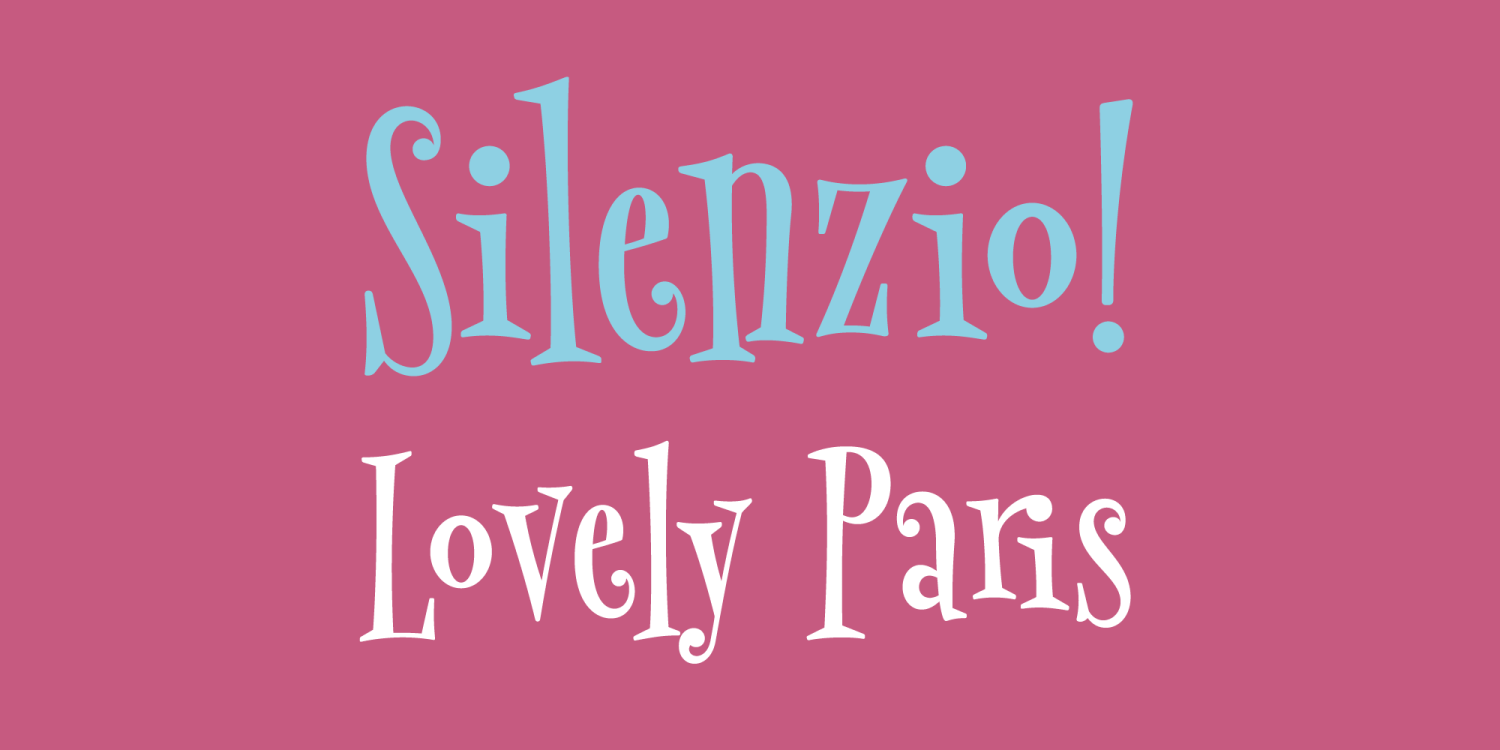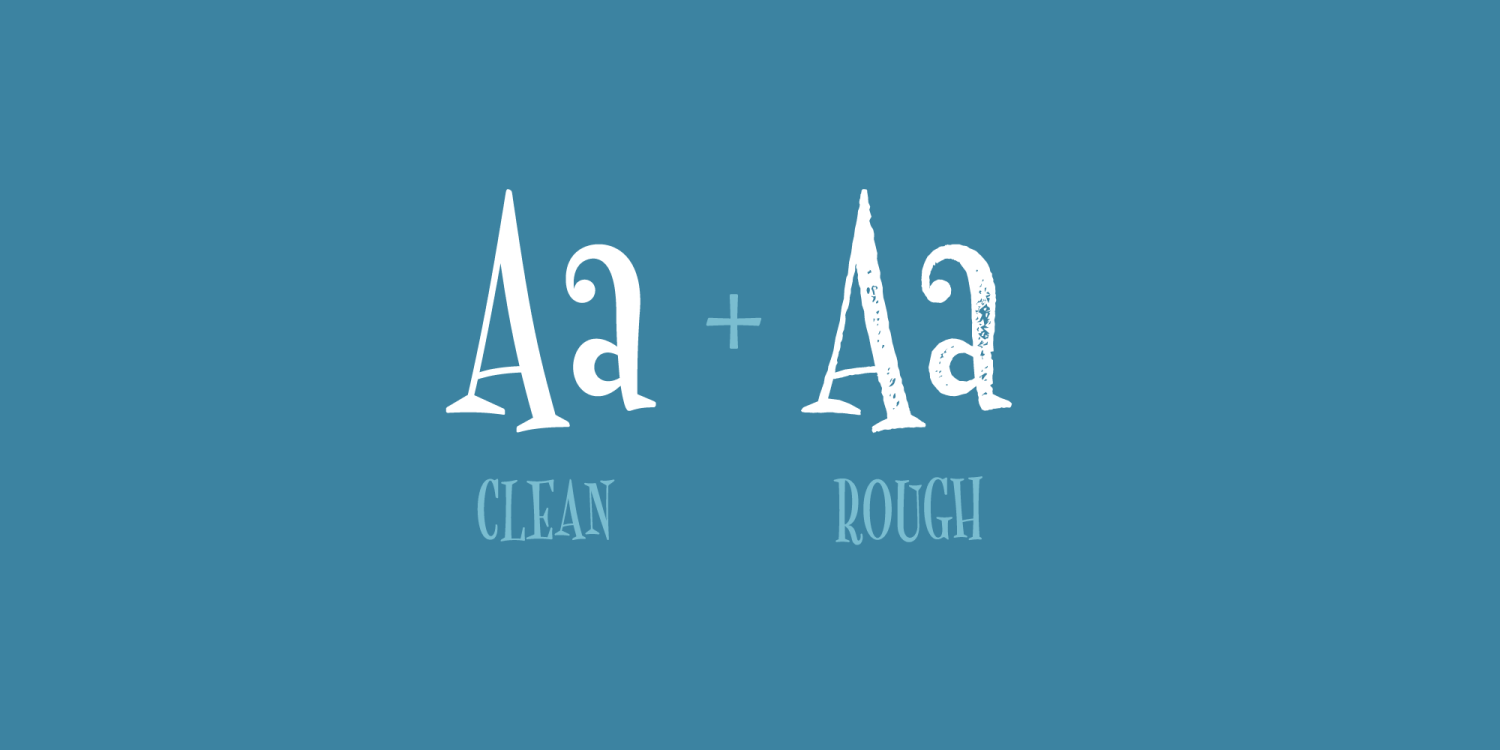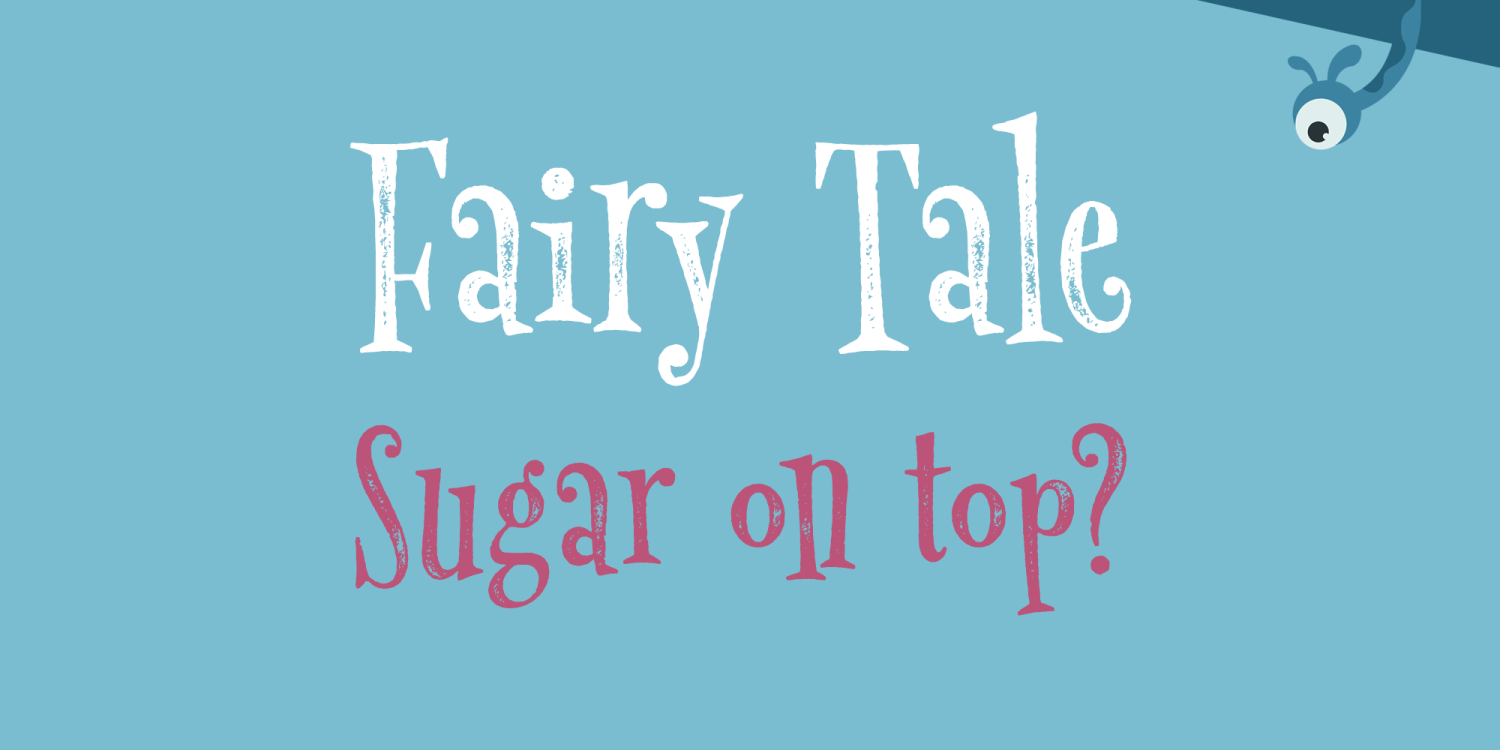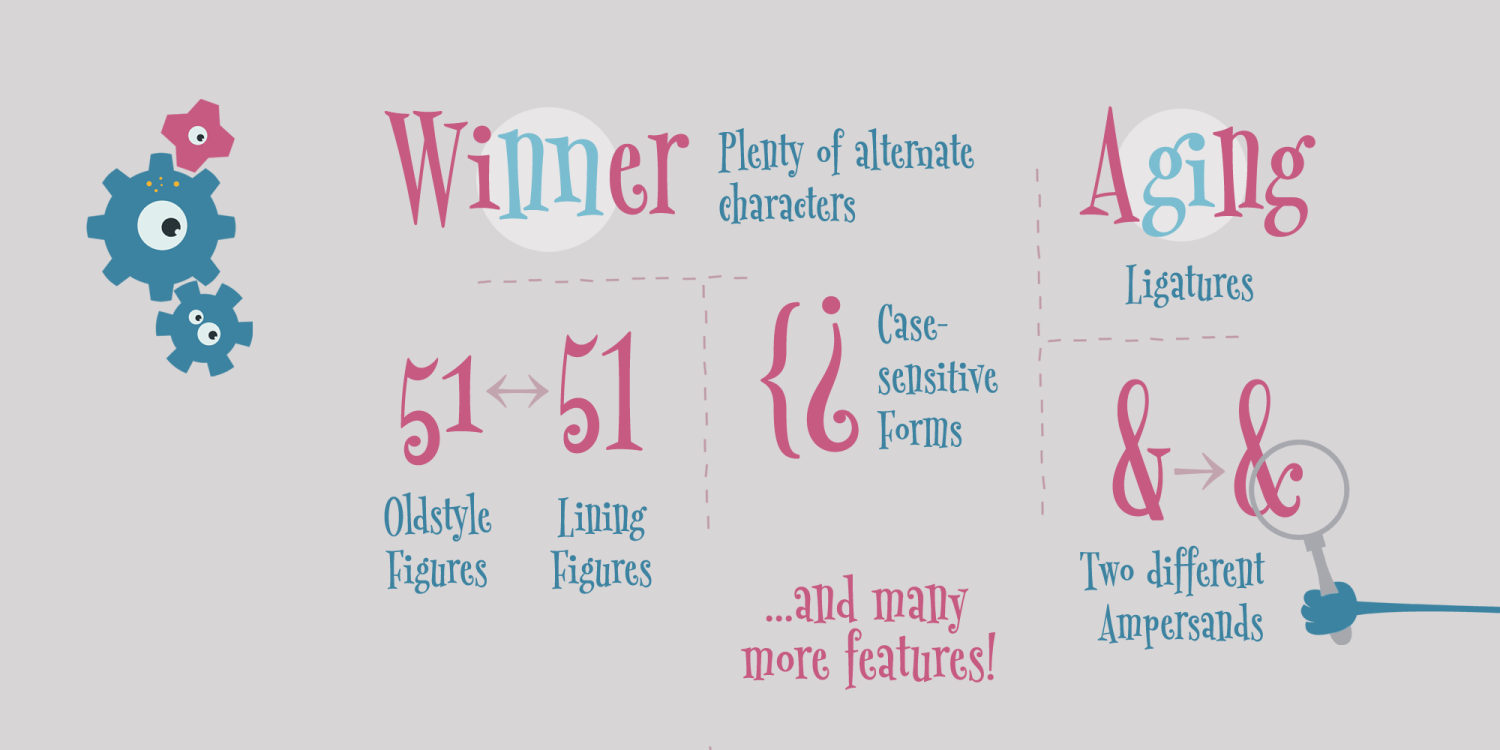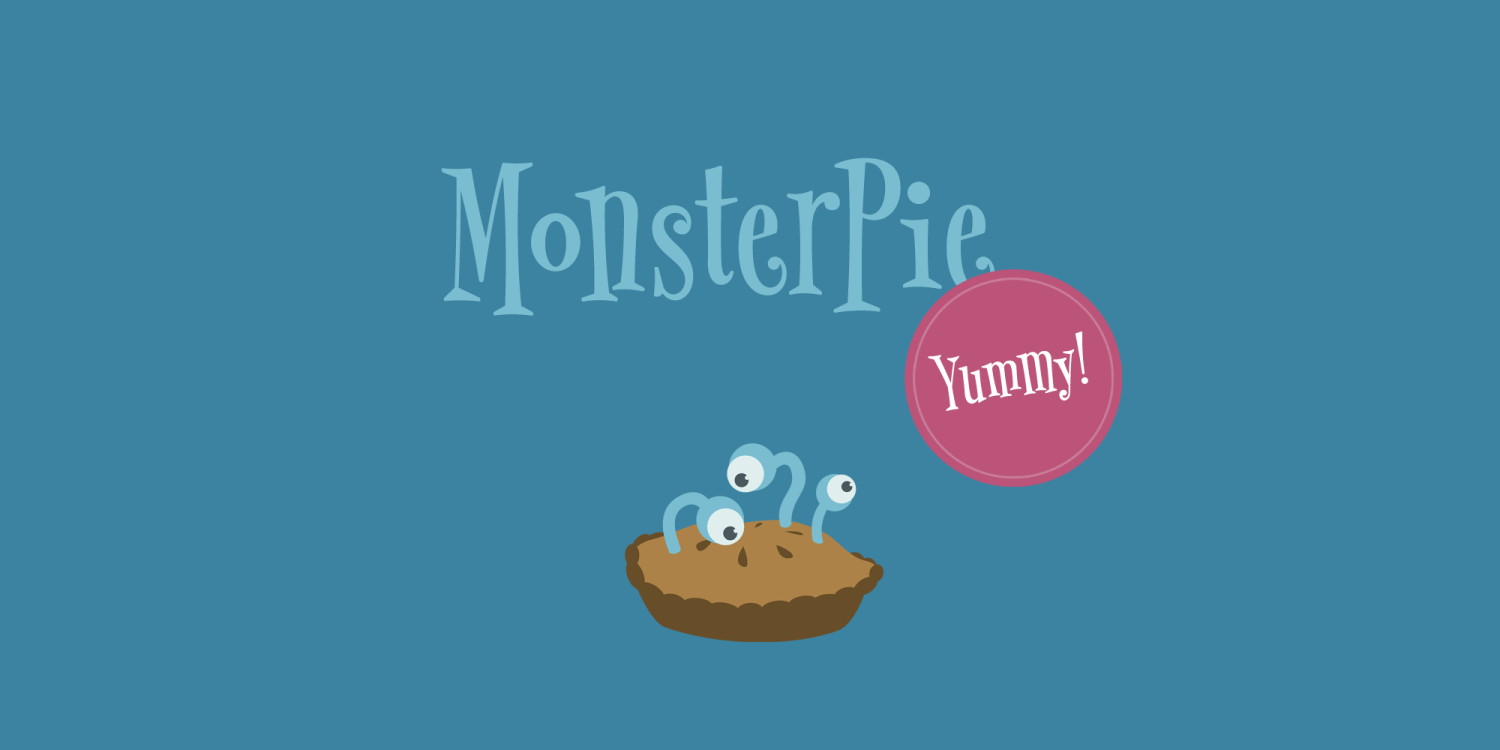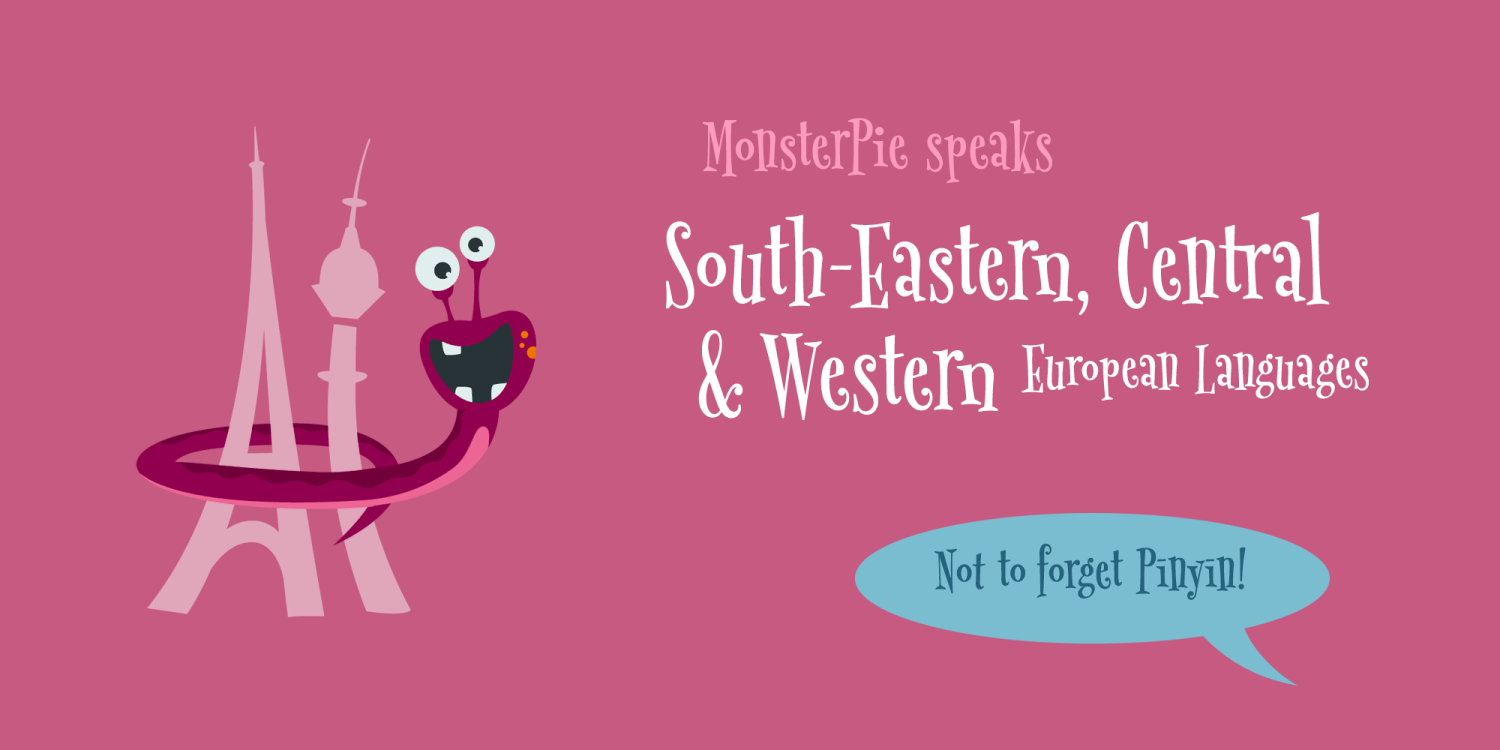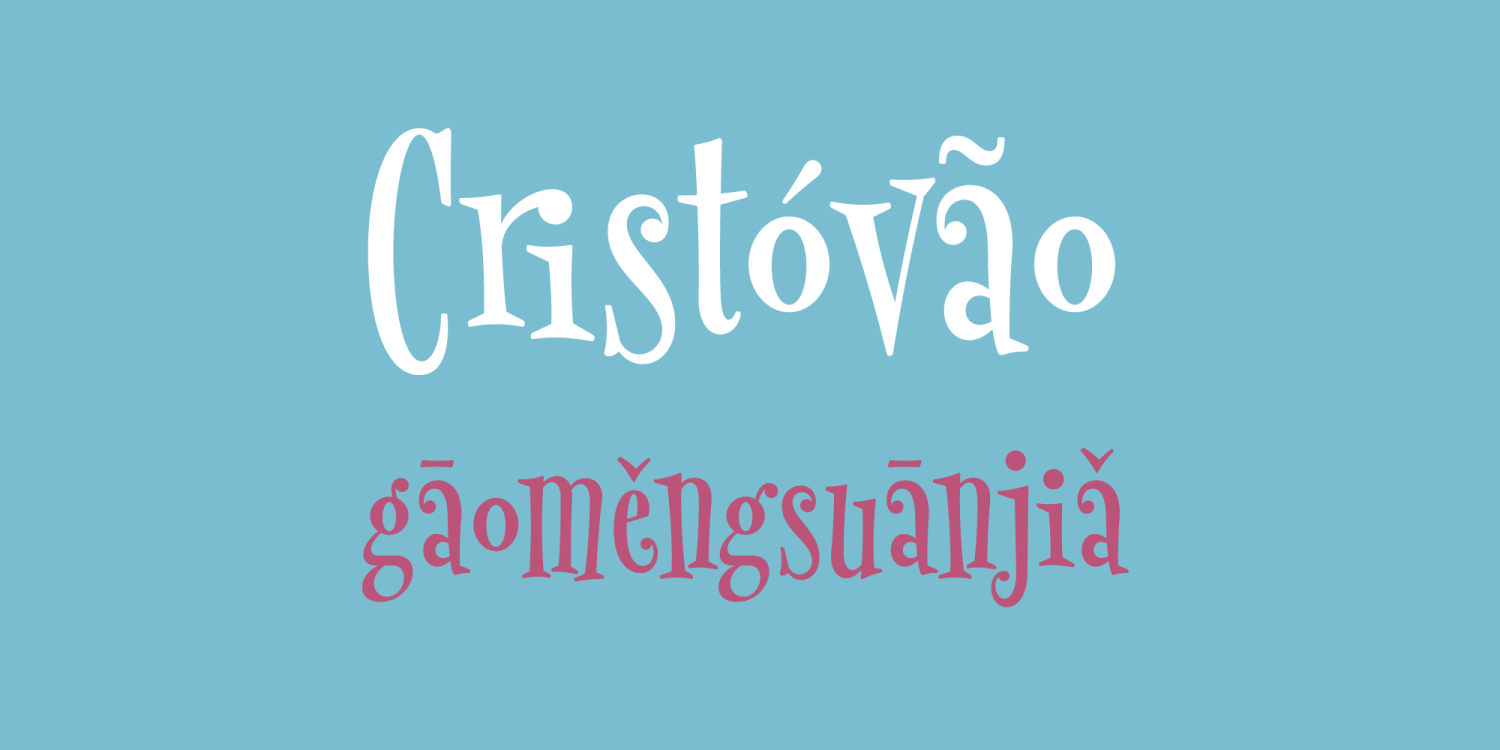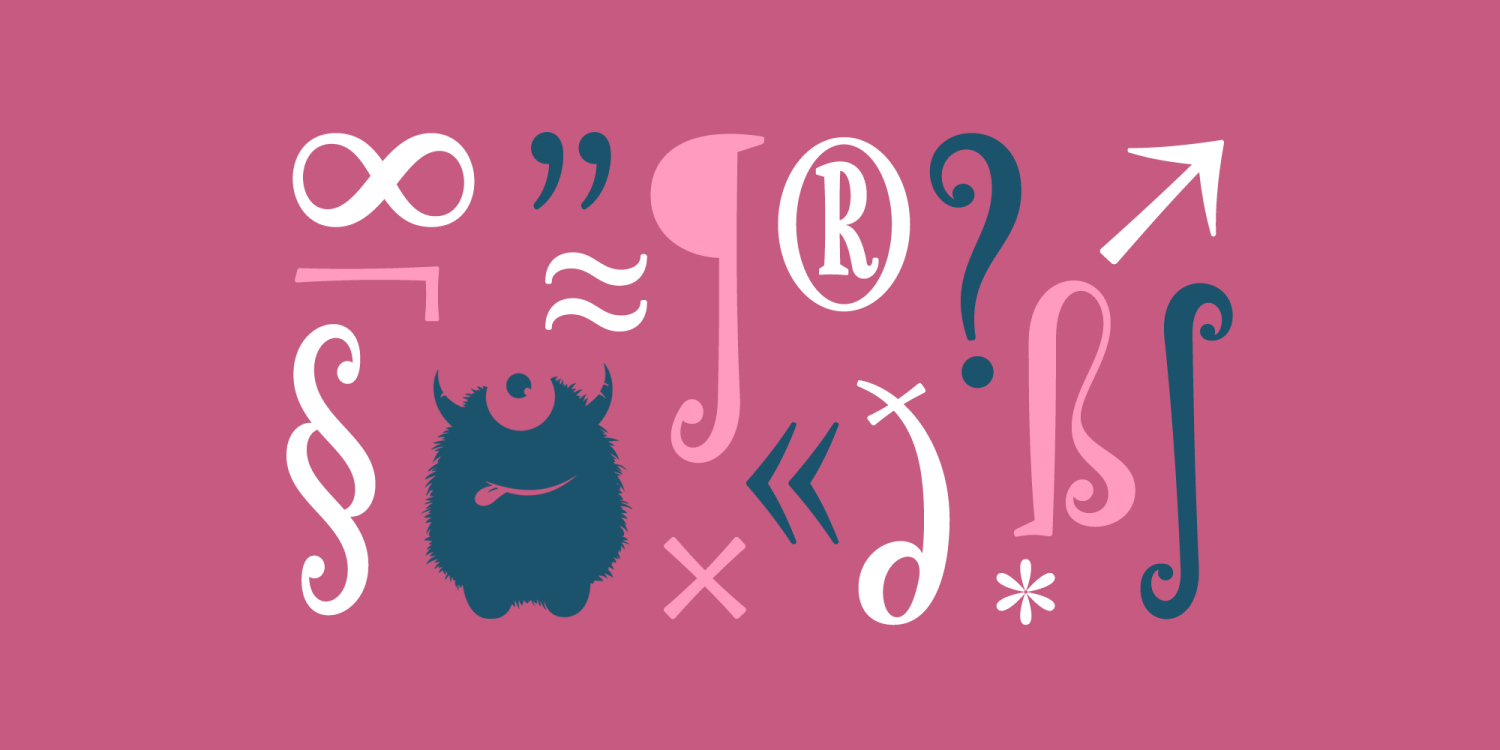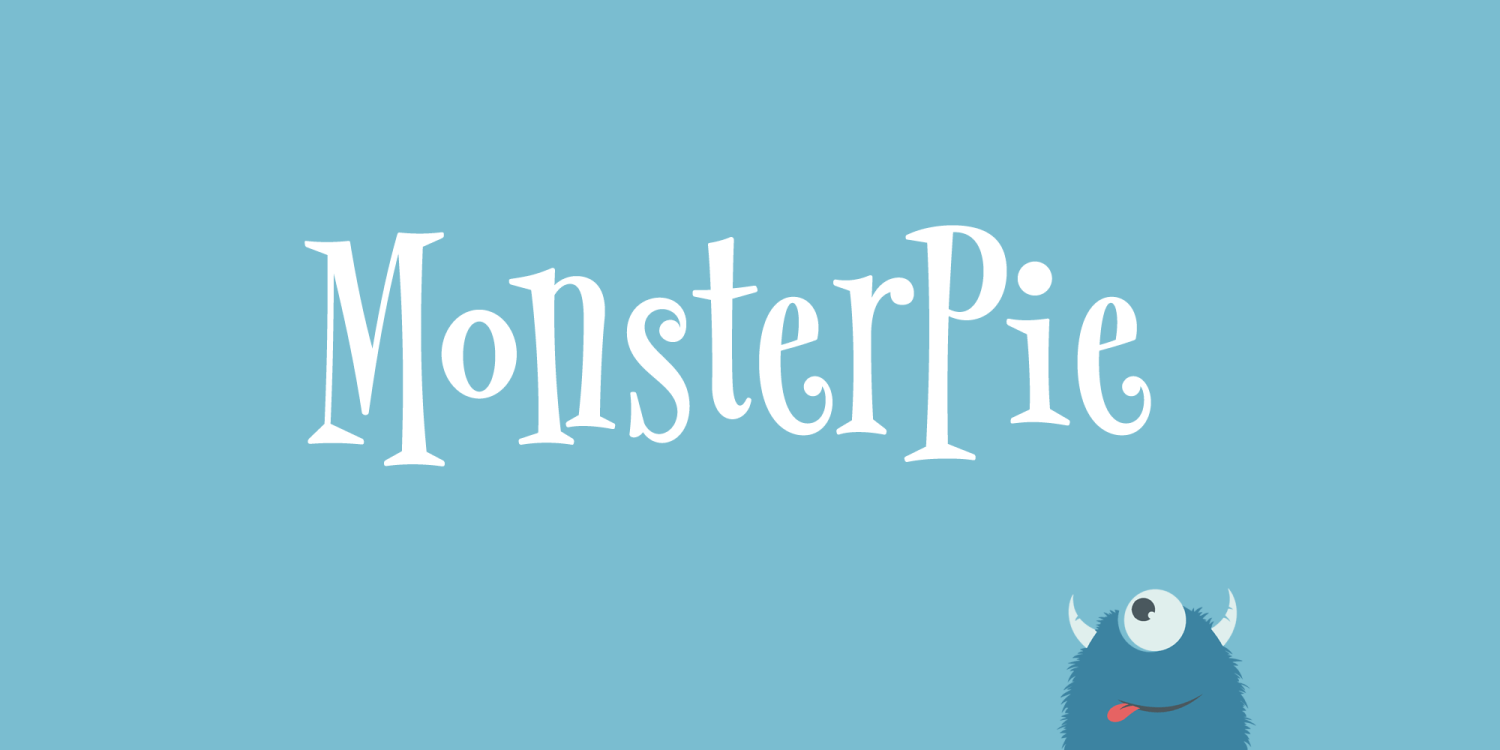
MonsterPie
About MonsterPie
Say hello to MonsterPie. This font brings the funny appearance of irregular designed characters together with the classic look of the Didone typefaces from the 18th century ? that makes it a good choice for theme parks, movie posters, games, greeting…